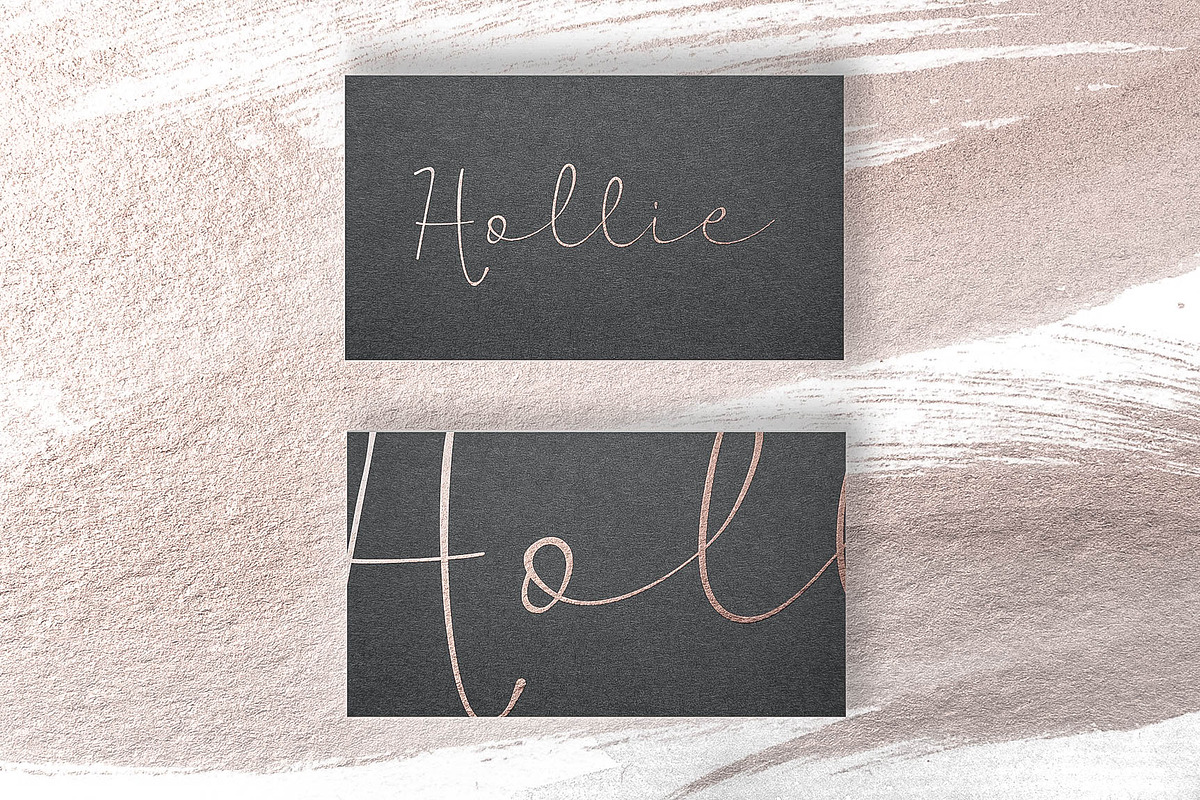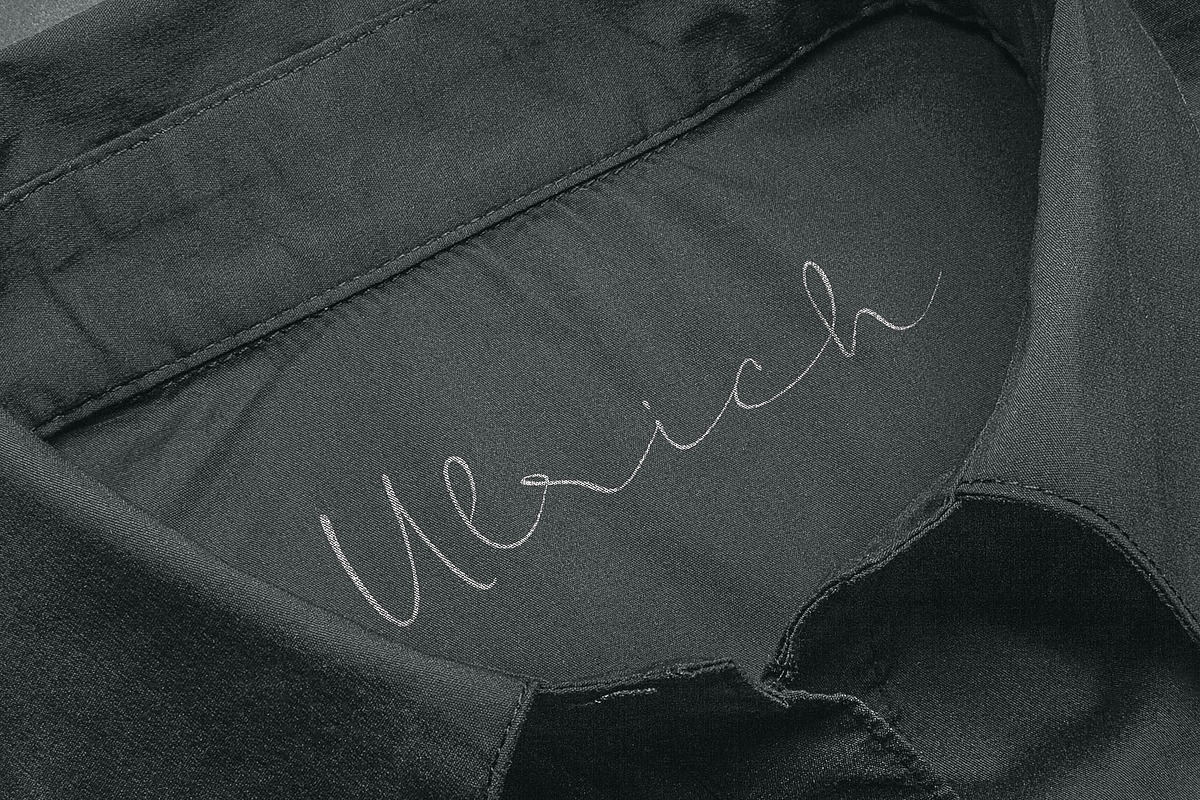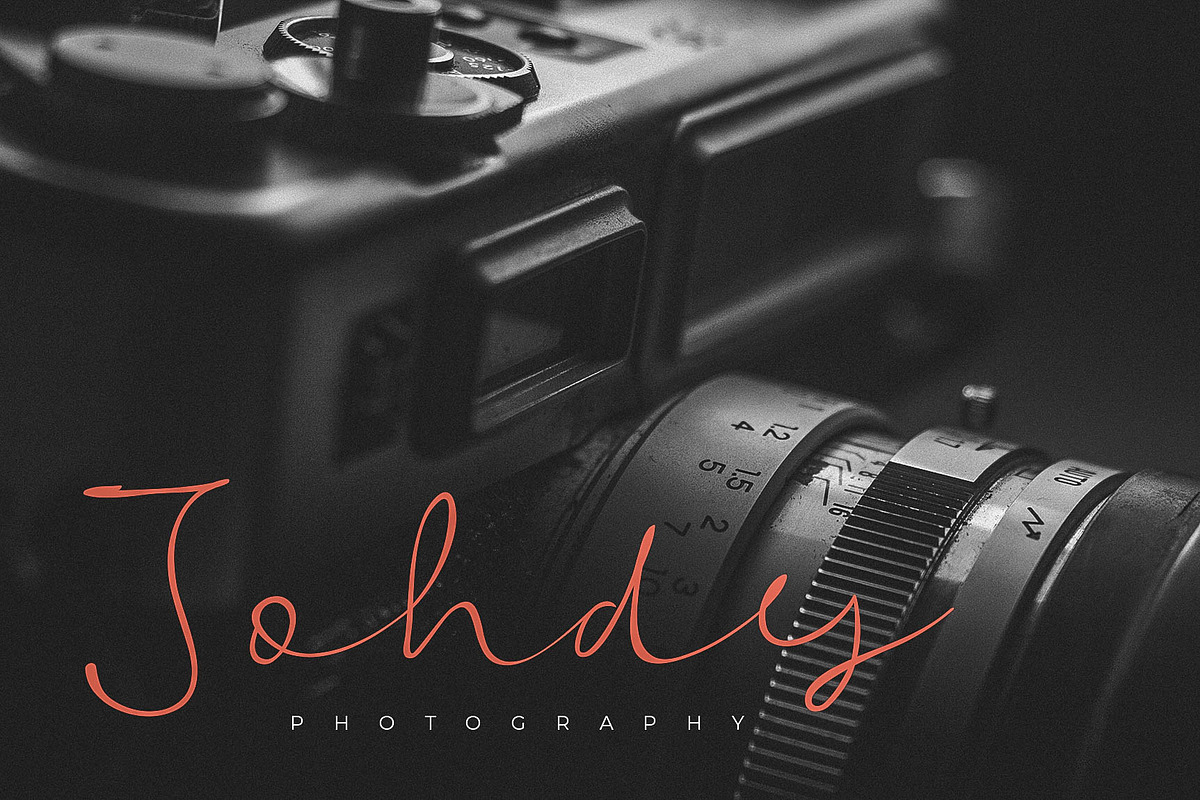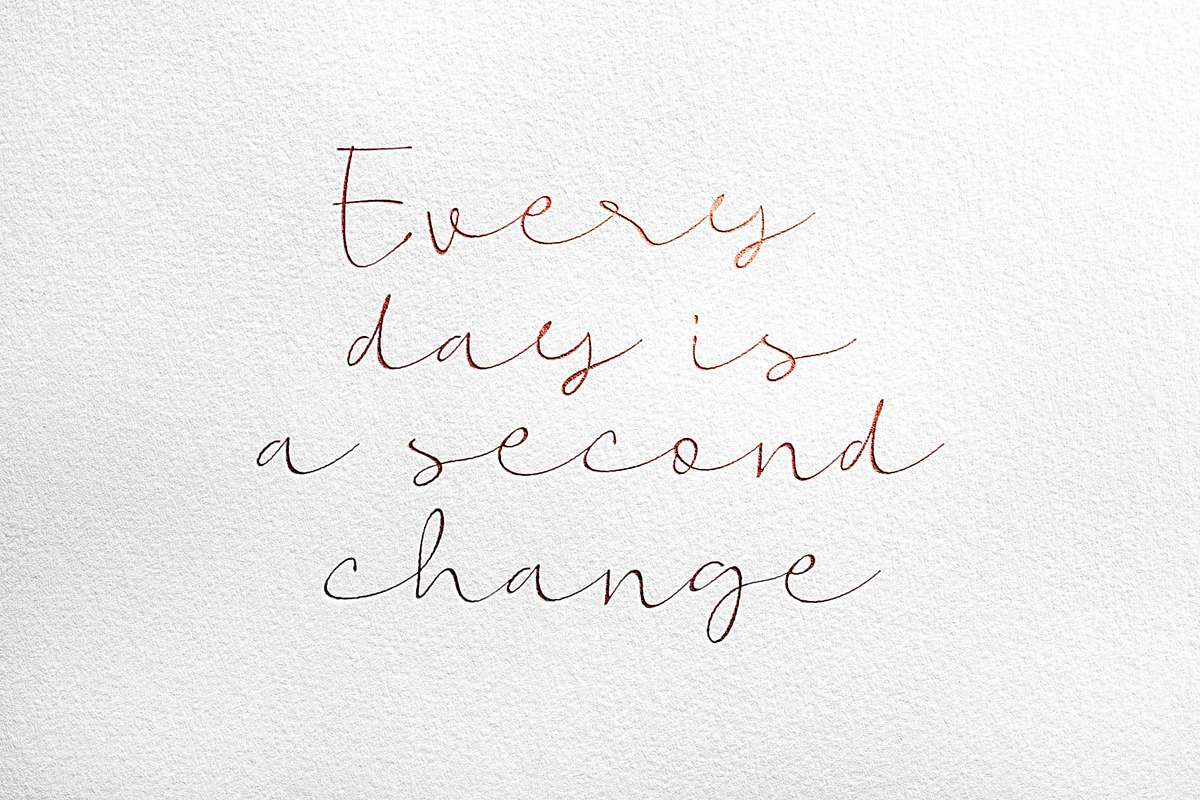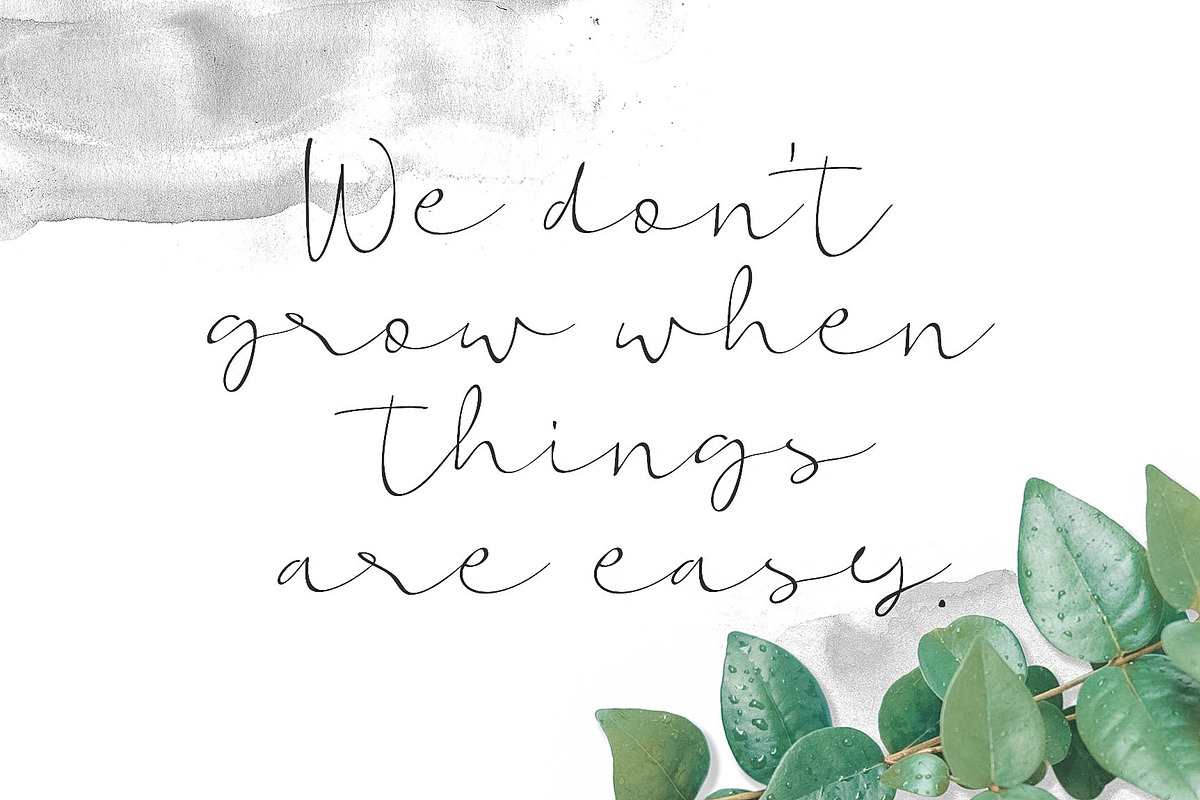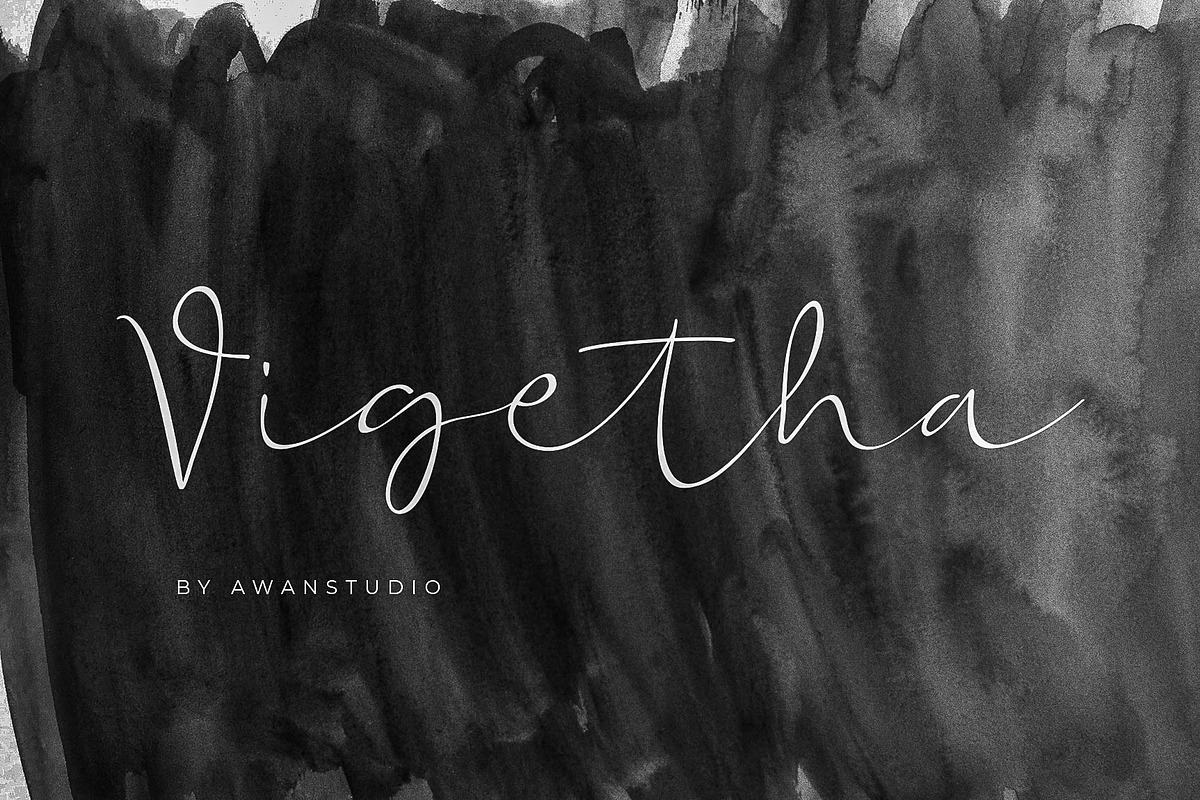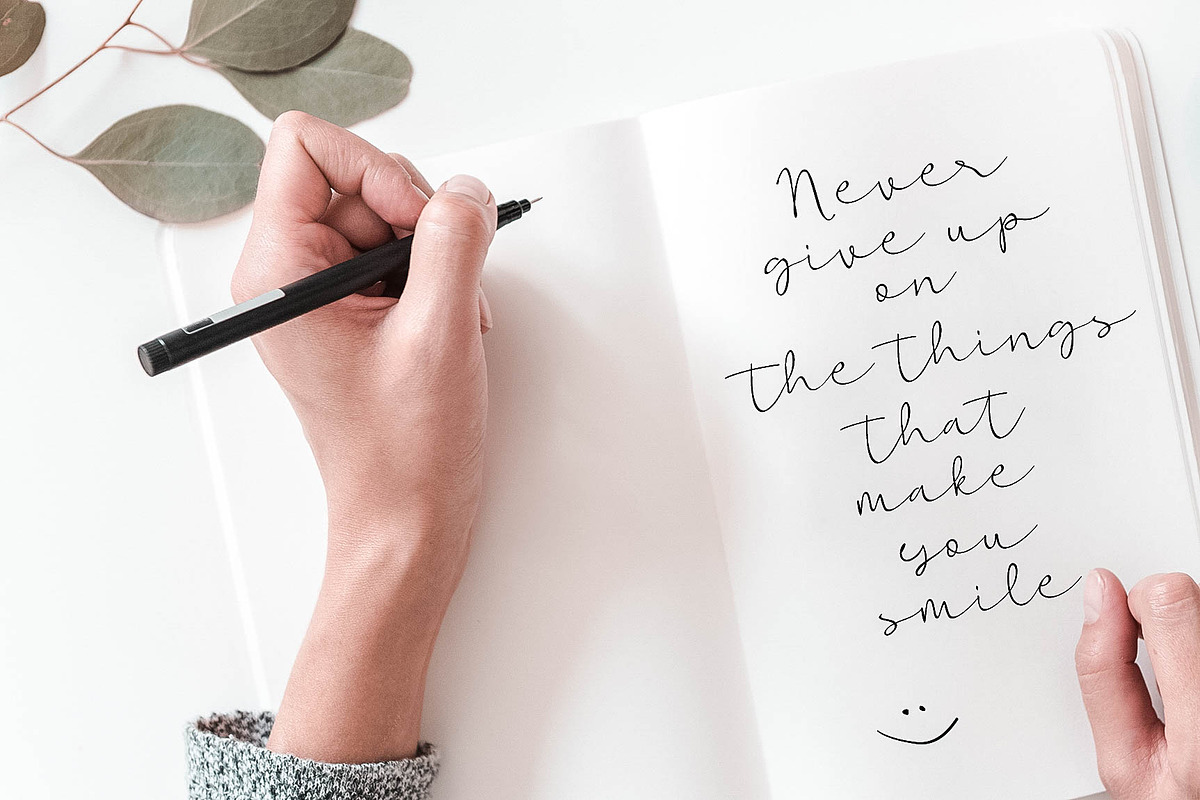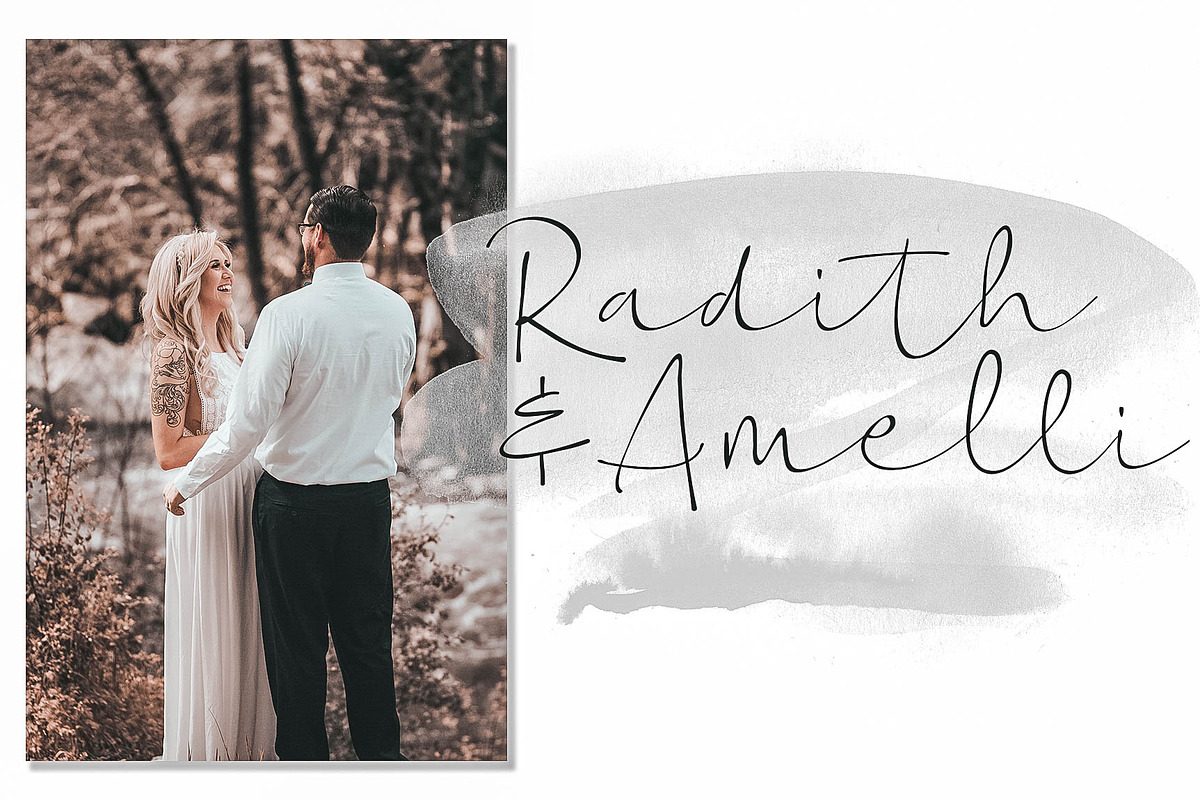
Vigetha Script Font
Introducing Vigetha script font, it allows you to create stunning and easy hand-lettering in an instant. Ideal for the logo, branding, quotes, wedding, product label/packaging, fashion, letter, advertising, invitation, poster, merchandise, apparel, stationery, greeting cards, etc
Ligatures: at et ft ht it nt ot st att itt utt ett ott bb cc dd ee ff gg ll mm nn oo pp rr ss tt fi the
Why Vigetha Script Font is worth a look
Vigetha Script Font by Awanstudio fits naturally into Branding, posters, packaging, typography.